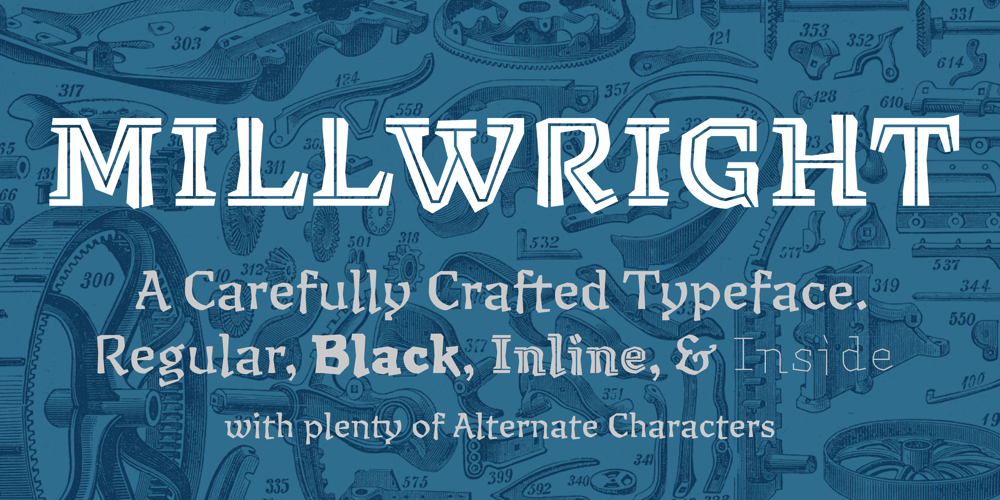
Millwright Font Family was designed by Matt Heximer and published by 10four. Millwright contains 4 styles and family package options. Millwright is a display typeface family inspired by spunky DIY attitude and Industrial era hardware… an exercise in rendering glyphs with a rudimentary, hand-cut flavour. The type family’s built in Open Type features allow for easy substitution of glyphs… creating plenty of diversification for letter combinations, and multiple glyph variations. Millwright results in designs that are packed with bold character and Do-it-yourself pizzazz. Millwright’s quirky letterforms lend itself to a multitude of graphic applications; from serious branding applications, to light-hearted packaging, to children’s book publishing, to hand-crafted DIY projects. Millwright comprises a family of 4 styles; the utilitarian “Regular” weight, a brash “Black” weight, to the art-deco inspired “Inline” and the accompanying “Inside” for layering multiple colours.